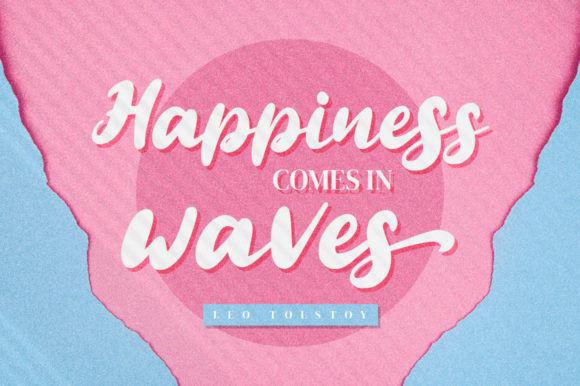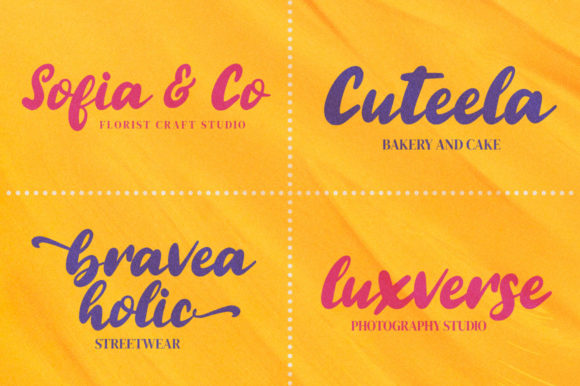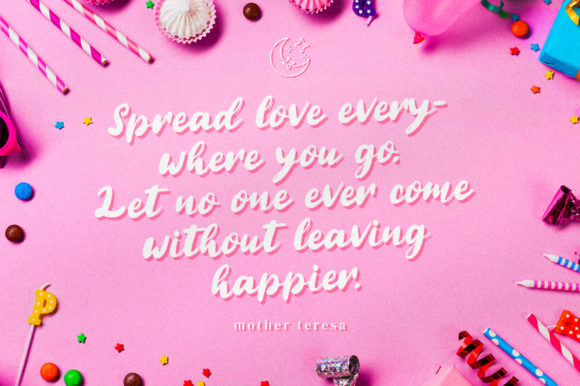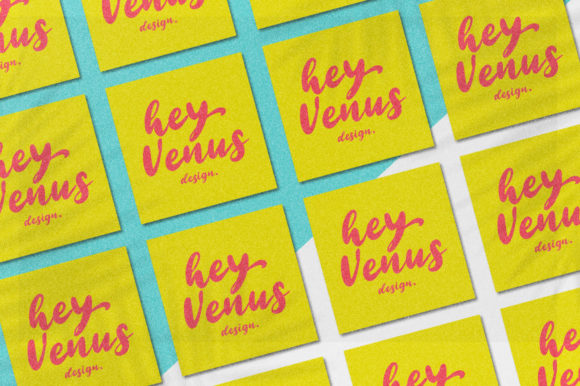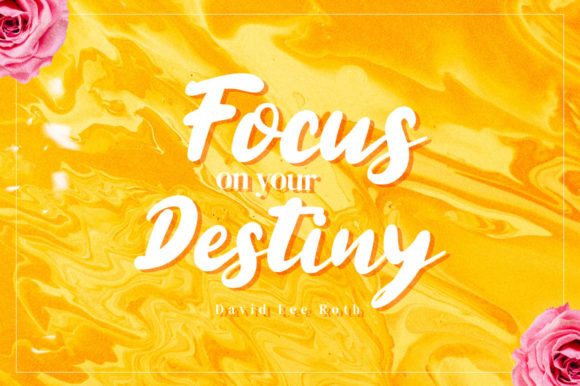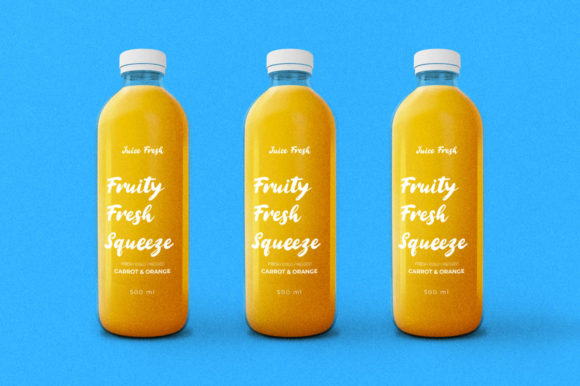
Introduction to Hamidah Font
As designers, we’ve all been there – staring at a blank canvas, trying to conjure up the perfect font to bring our creative project to life. But sometimes, it’s not just about finding the right font, but also about evoking a specific mood or atmosphere. That’s where the stunning Hamidah Font comes in – a gorgeous and bold handwritten font that exudes strength, confidence, and dynamism.
With its high-quality design and PUA encoding, accessing all of the glyphs and swashes is a breeze, making it an invaluable resource for designers looking to add a touch of nostalgia to their designs. Whether you’re working on a free download project or a commercial design, the Hamidah Font is sure to elevate your work and leave a lasting impression.
- High-quality design resource ideal for creative projects, offering a unique and elegant aesthetic.
- Unique characteristics include intricate details and ornate flourishes, making it perfect for creative projects requiring a touch of elegance.
Honest Review: Hamidah Font
I recently came across the Hamidah Font, and I was impressed with its potential as a design resource for creative projects. With a free download available, it’s an excellent starting point for designers looking to enhance their typography.
The Hamidah Font boasts high-quality design, with a range of stylish and modern fonts that can elevate any design. I particularly appreciate the transparent background option, which makes it easy to customize and integrate into various design elements.
- ✨ Elegant and sophisticated design aesthetic
- ✨ Wide range of font styles and sizes
- ⚠️ Limited character set and language support
Overall, the Hamidah Font is a solid addition to any design arsenal. While it may not be perfect, its high-quality design and transparent background make it an excellent choice for creative projects. With some consideration of its limitations, I would definitely recommend the Hamidah Font as a valuable design resource.
The Hamidah Font is ideal for use in branding, packaging, and marketing materials. Its elegant and sophisticated design makes it perfect for creating high-end and luxury designs.